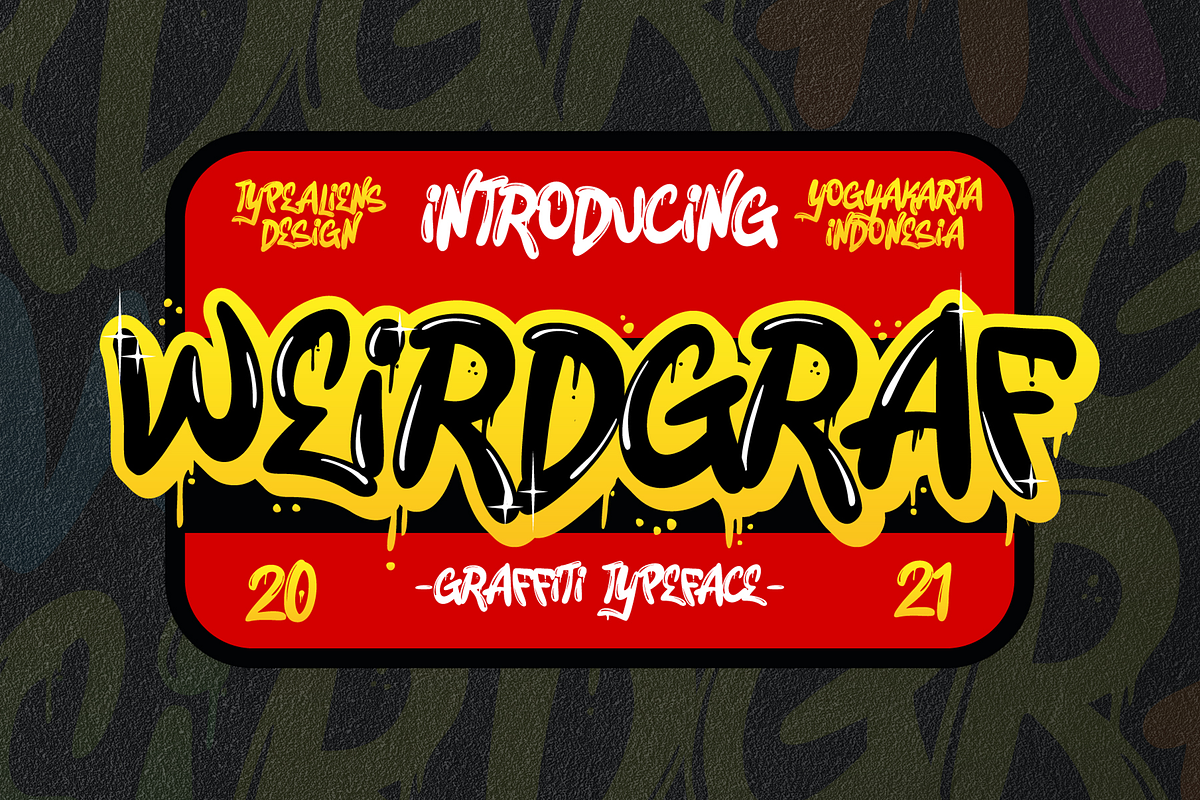
Weirdgraf Font Free Download is an unconventional and quirky typeface that adds a bold and distinctive touch to any design. With its irregular shapes and edgy style, this font is perfect for creative projects, posters, album covers, branding, and anything that needs a unique and eye-catching typography style.
Whether you're creating an avant-garde brand, designing for a music or art event, or building a bold visual identity, Weirdgraf brings originality and personality to your work. It’s the perfect font for designers looking to make a statement with their typography.